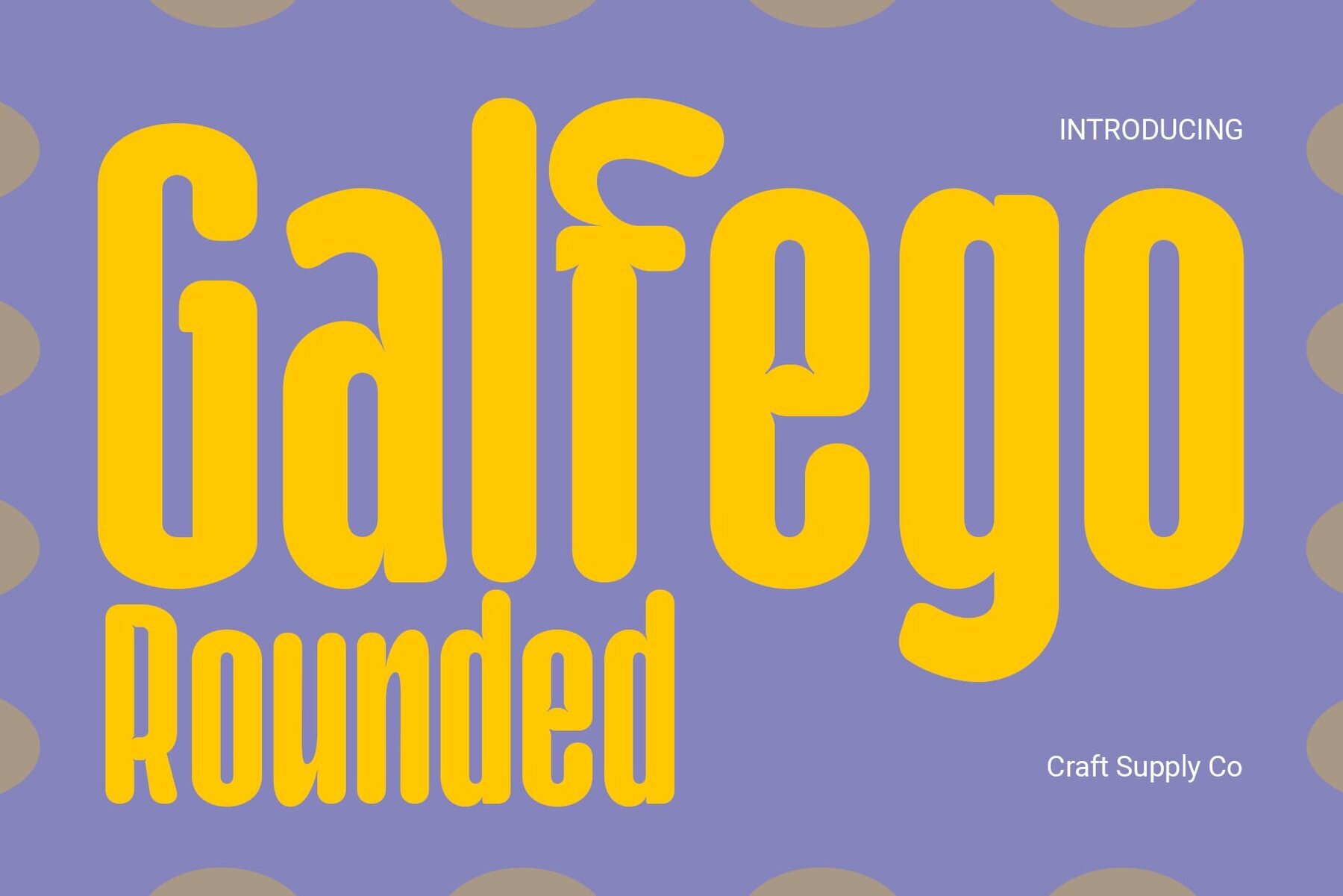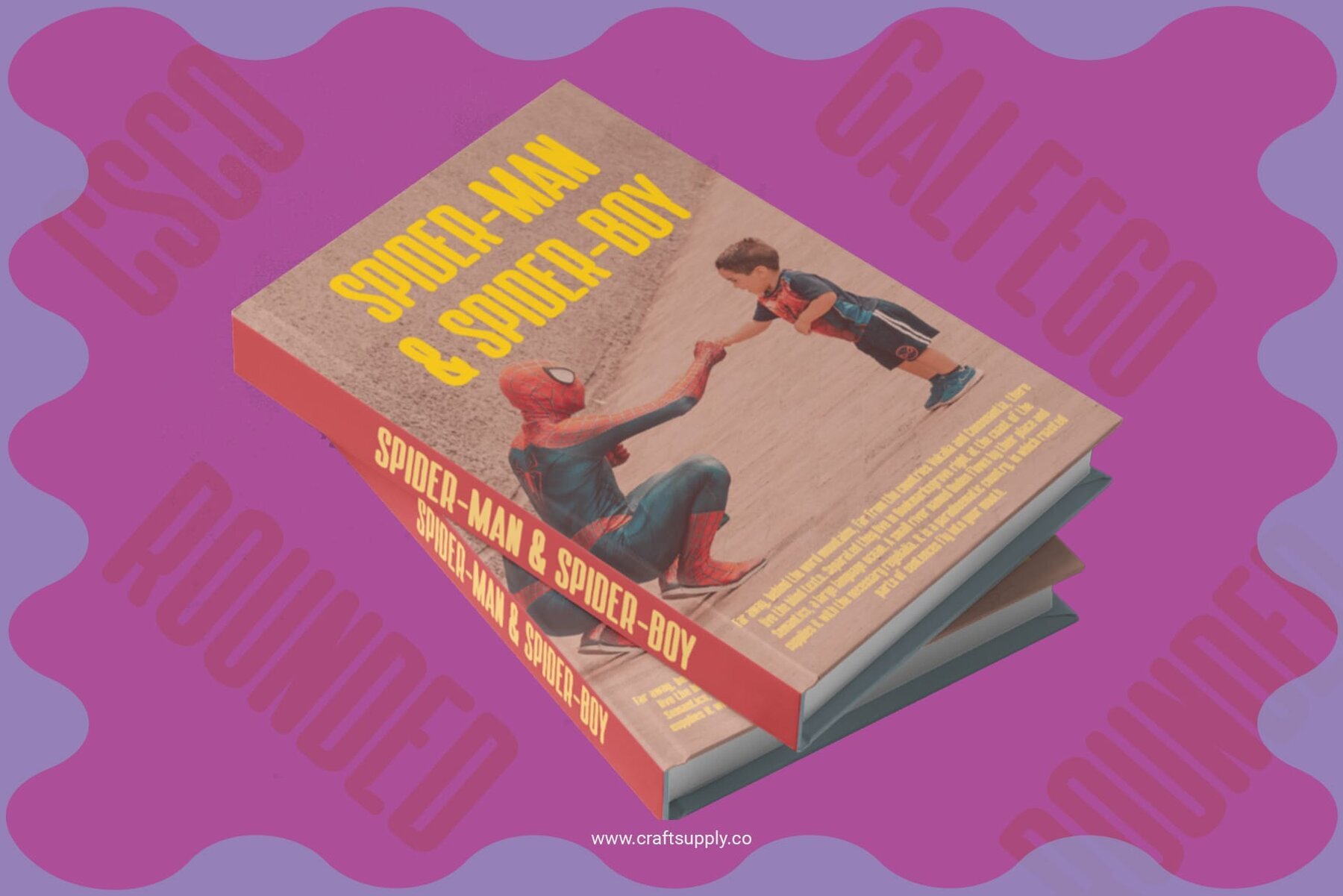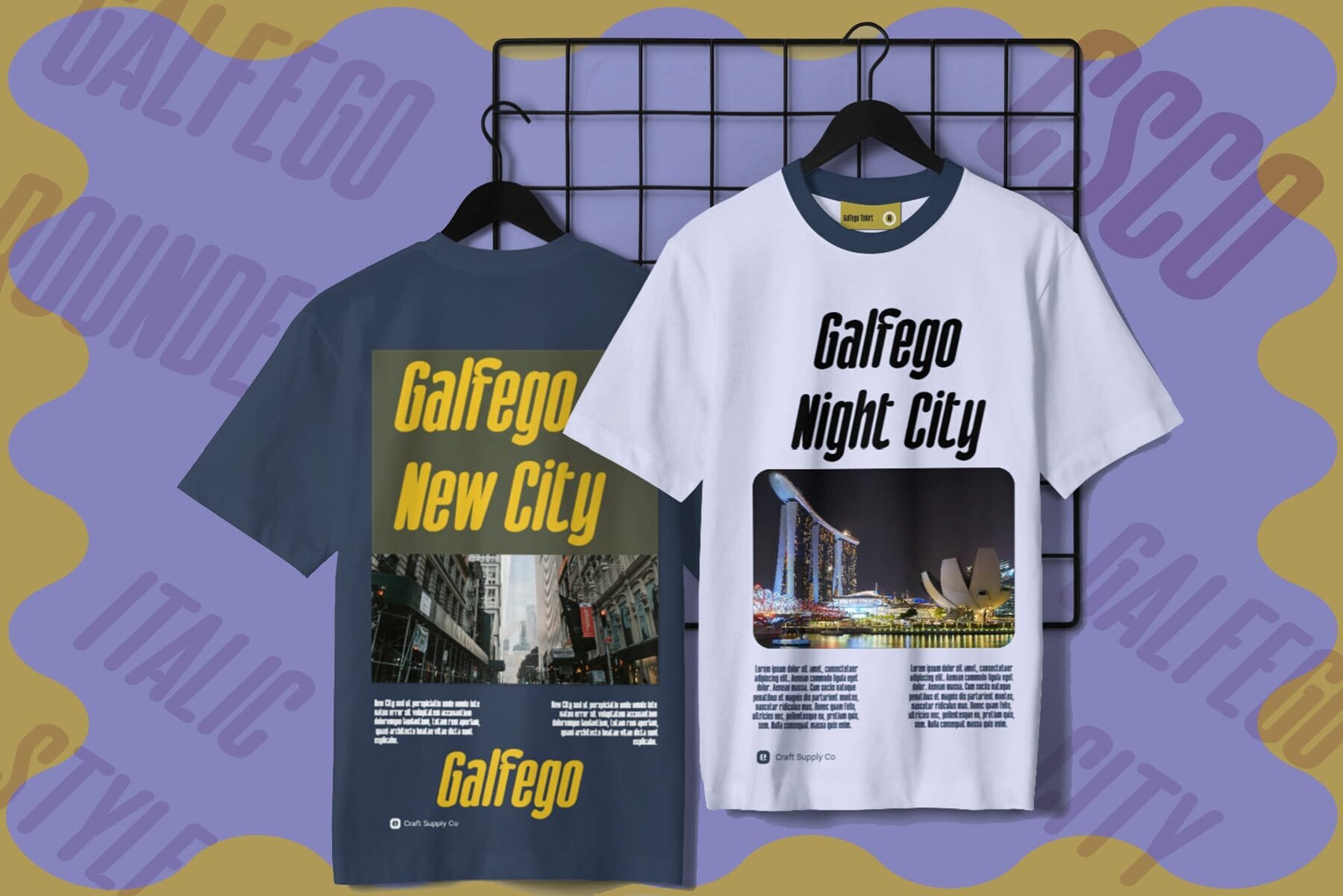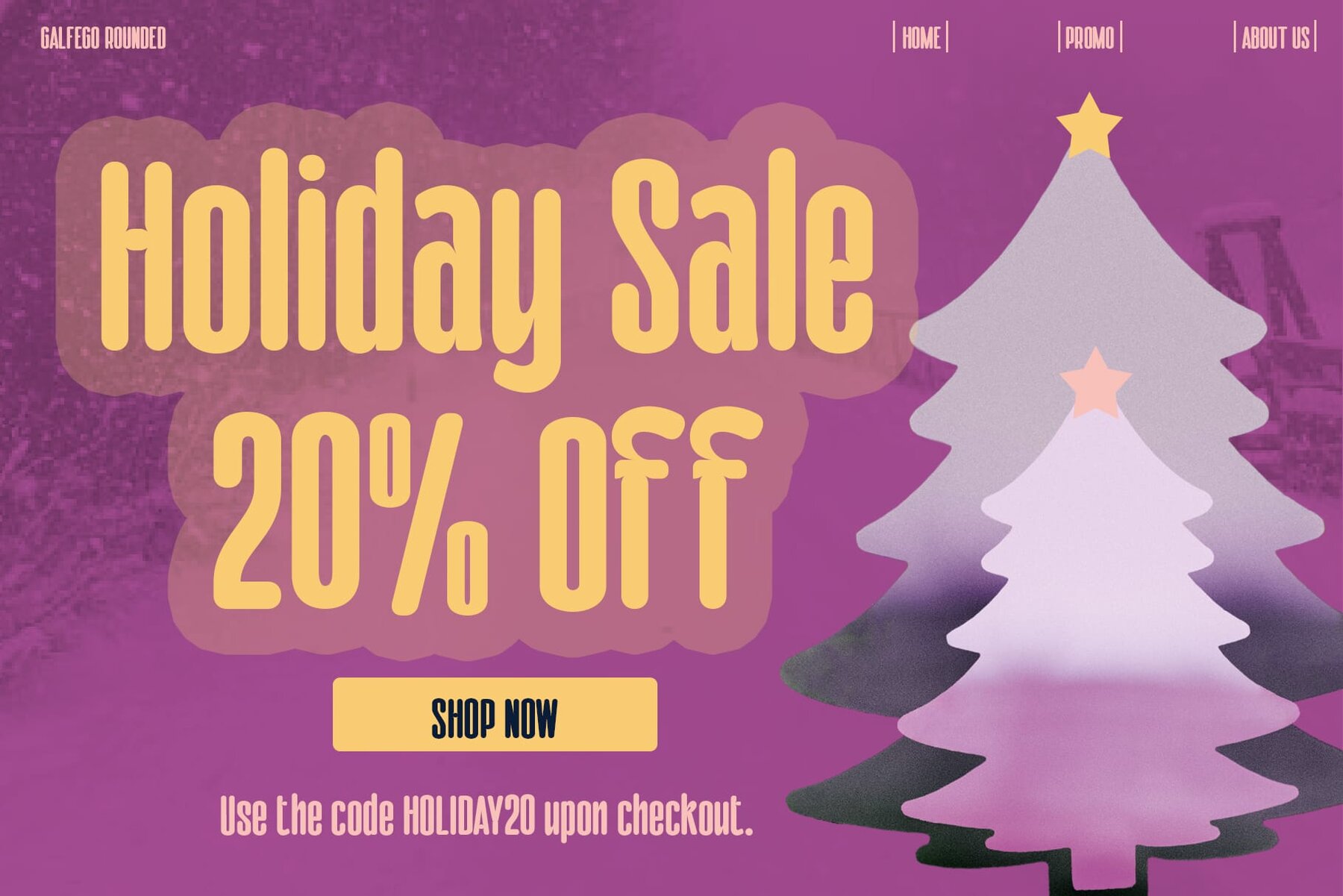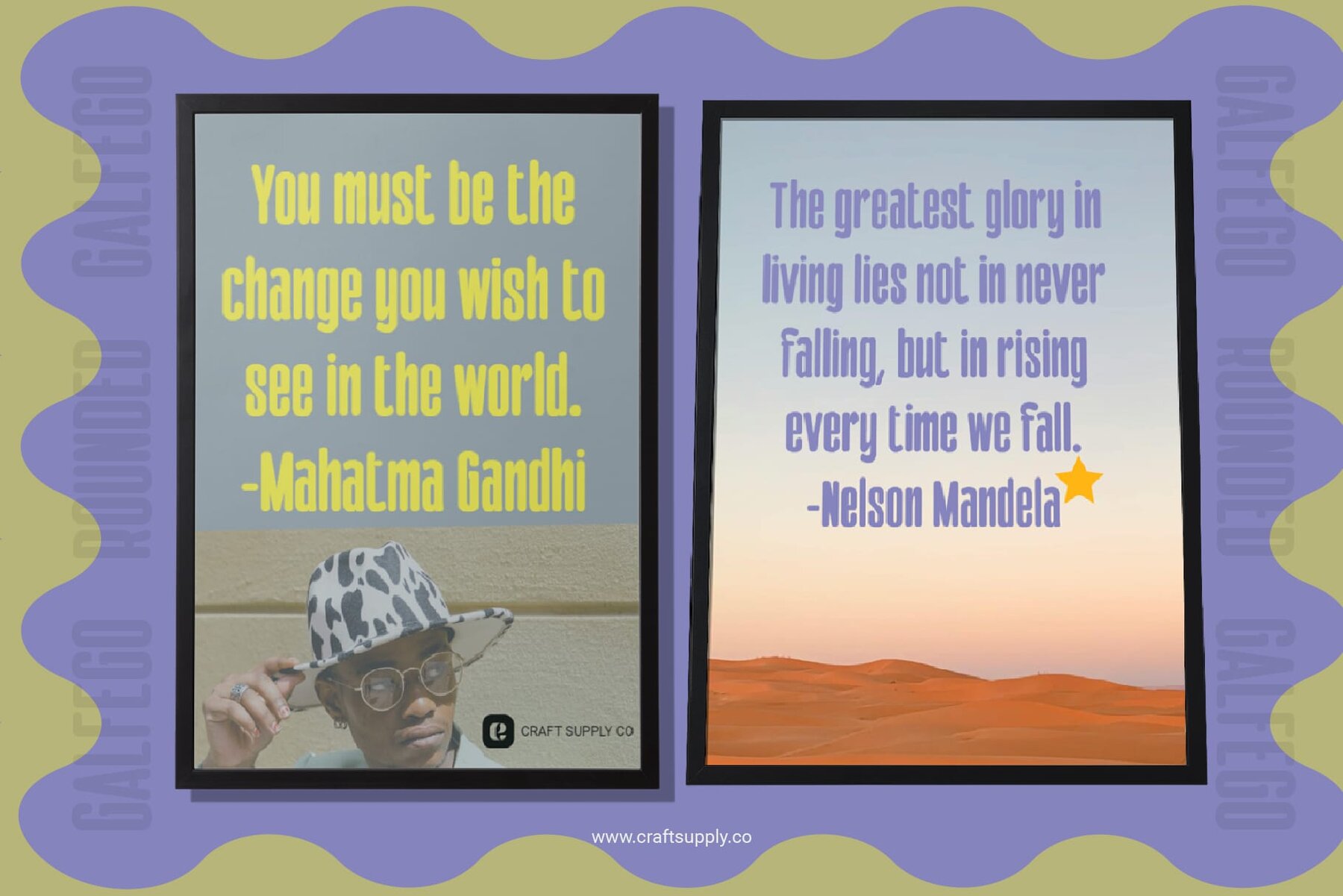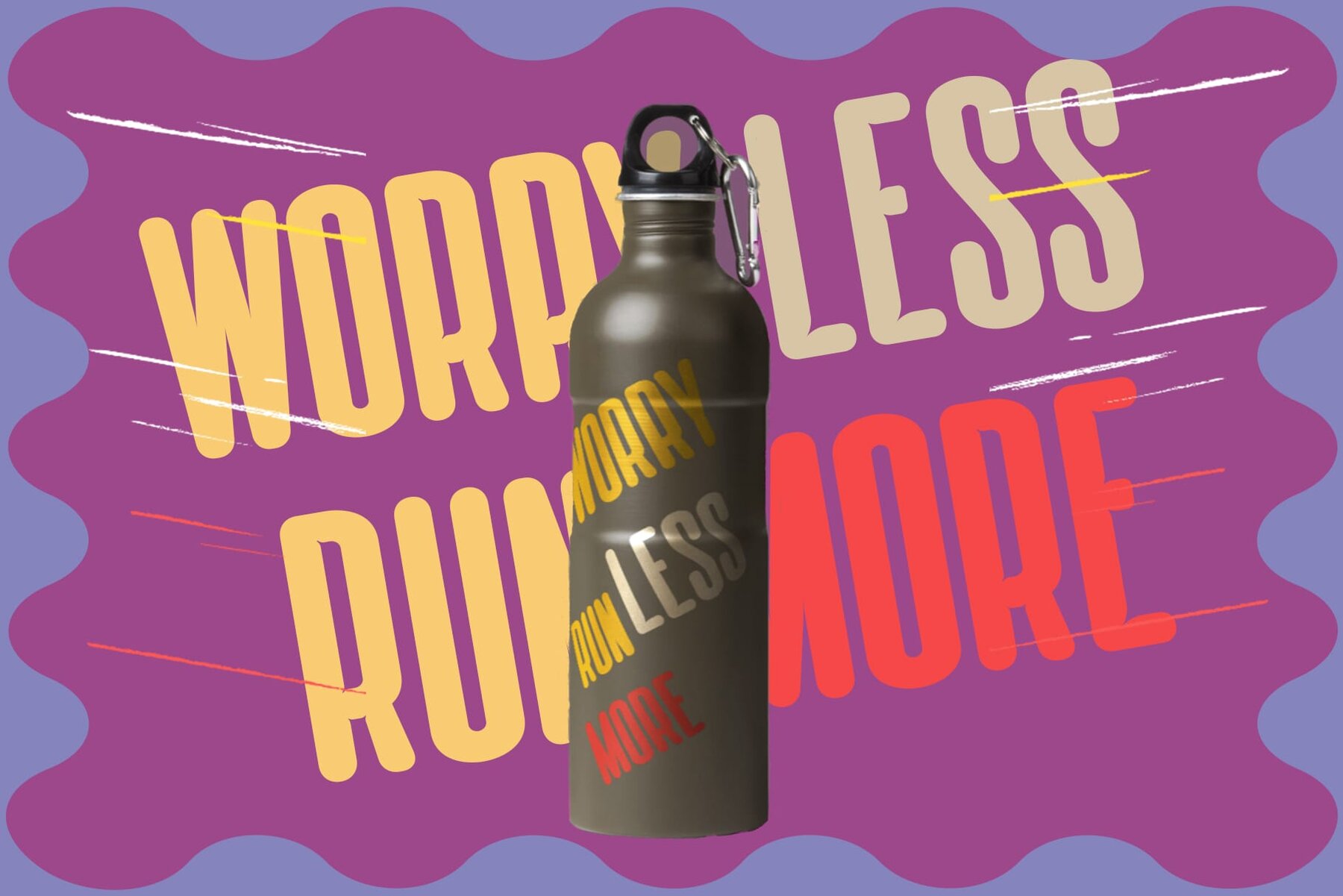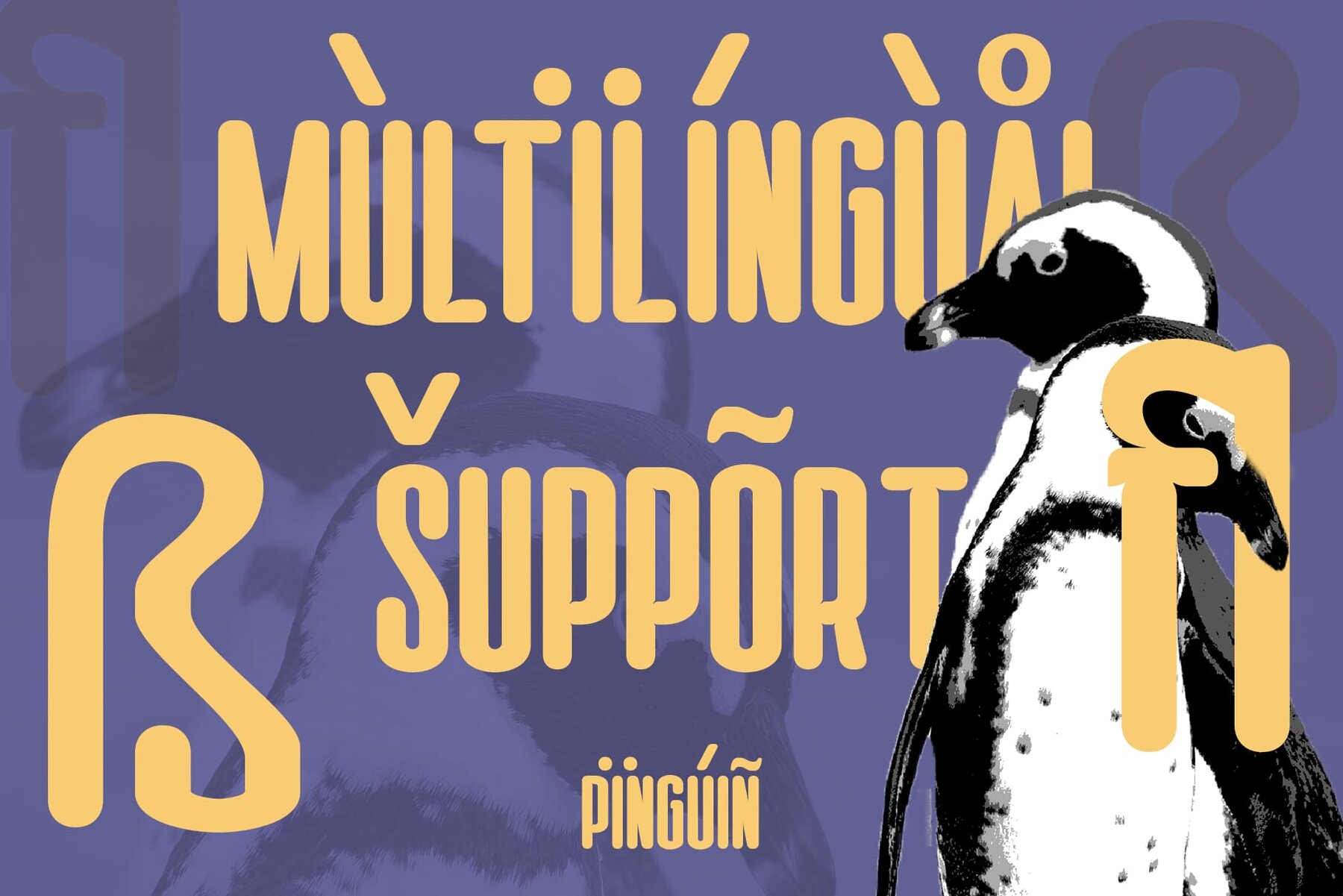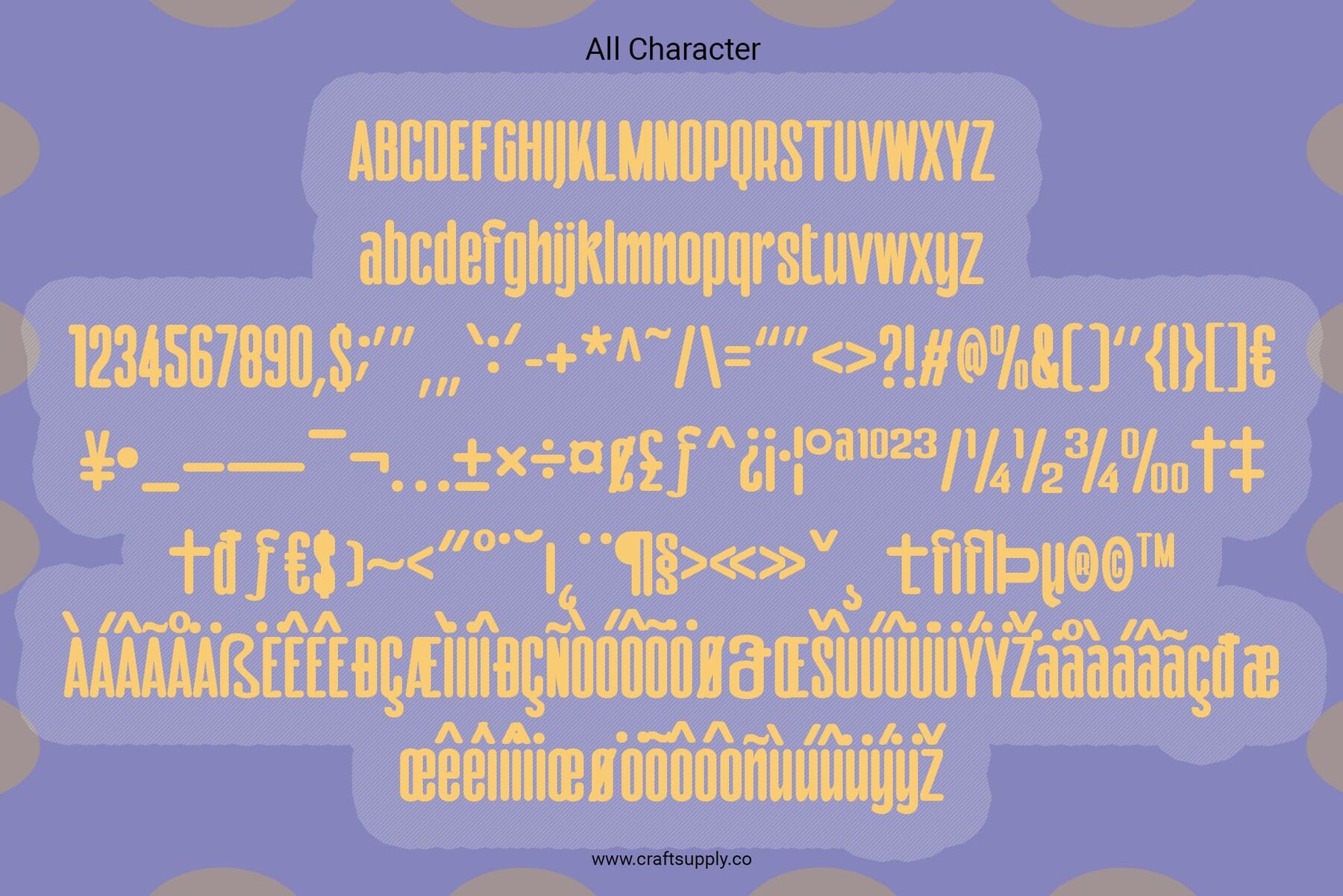
Galfego Rounded Font
Galfego Rounded boasts a bold and condensed design that commands attention with its strong presence. Its compact structure ensures maximum impact in any layout.
The font exudes a sense of fun and playfulness, making it perfect for projects that aim to convey energy and excitement. Its lively appearance adds a cheerful touch to any design.
With rounded stem ends, This font offers a softer and friendlier aesthetic compared to traditional sans serif fonts. This feature adds warmth and approachability to the overall look.
From headlines and logos to posters and packaging, This font is versatile enough to suit a wide range of design needs. Its boldness ensures readability and visibility across various mediums.
This font combines boldness and playfulness in a unique sans serif font. With its condensed form, fun vibes, and rounded stem ends, it’s an excellent choice for projects that demand both impact and charm.